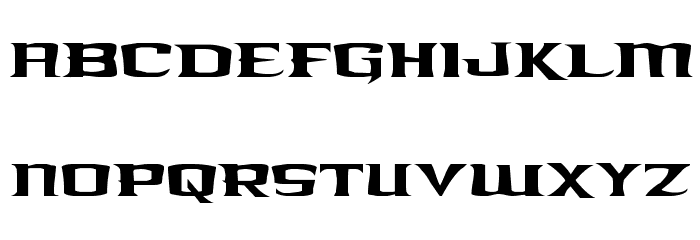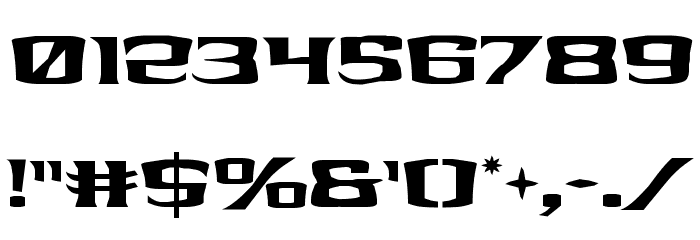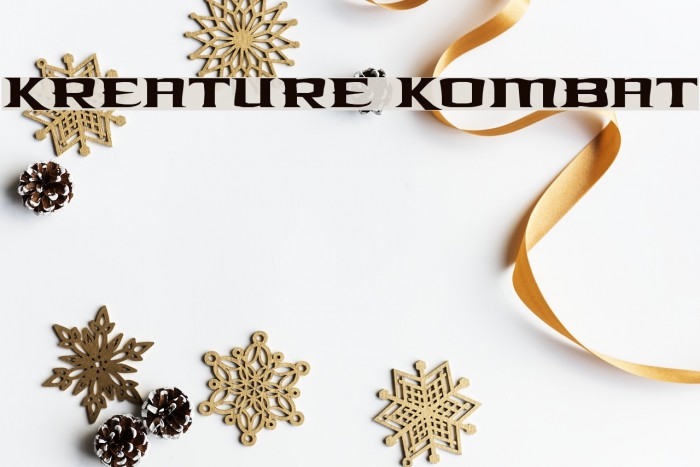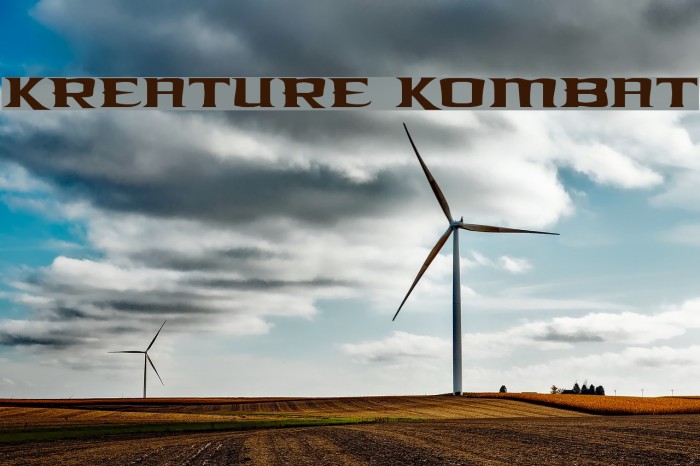
Kreature Kombat Font
This font features a bold and aggressive style, characterized by sharp, angular edges and a distinct, gothic-inspired appearance. The uppercase and lowercase letters maintain a consistent height, creating a uniform look across the text. The numerals and special characters follow the same design principles, ensuring visual coherence. The overall design is reminiscent of medieval or fantasy themes, making it suitable for projects that require a dramatic and impactful typeface.
A bold, gothic-inspired font with sharp, angular edges.
- Font: Kreature Kombat
- Proposed Projects: Ideal for video game titles, movie posters, fantasy book covers, and branding for edgy or alternative products.
- Overall Style: Gothic, Fantasy